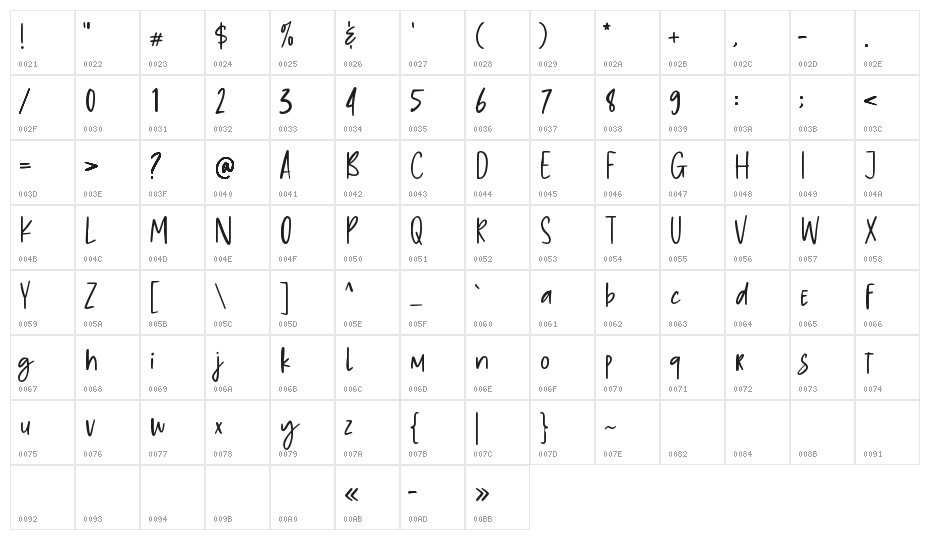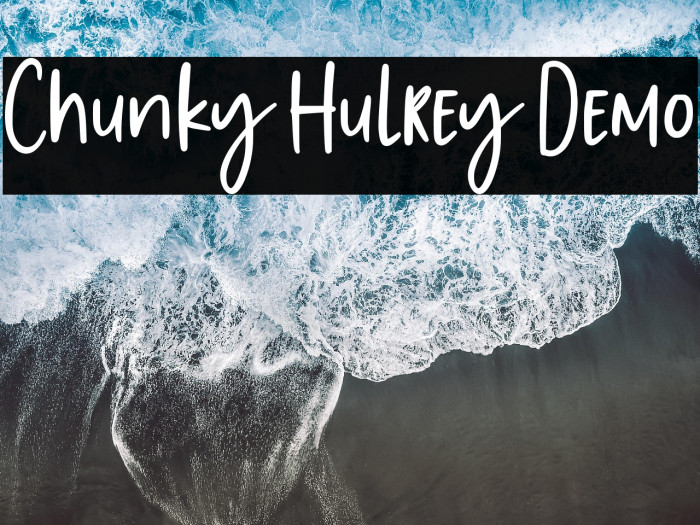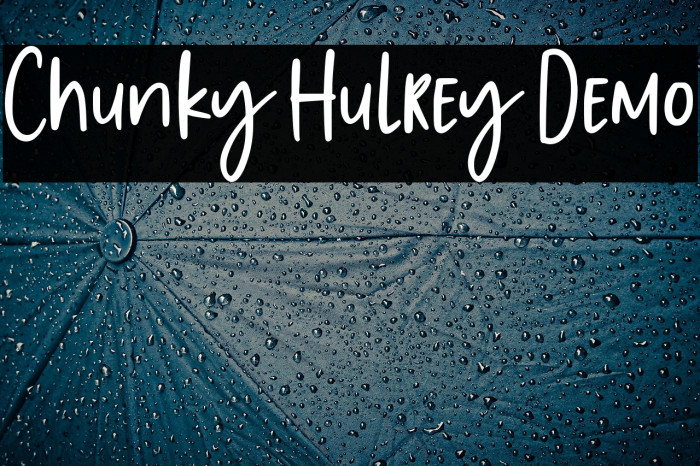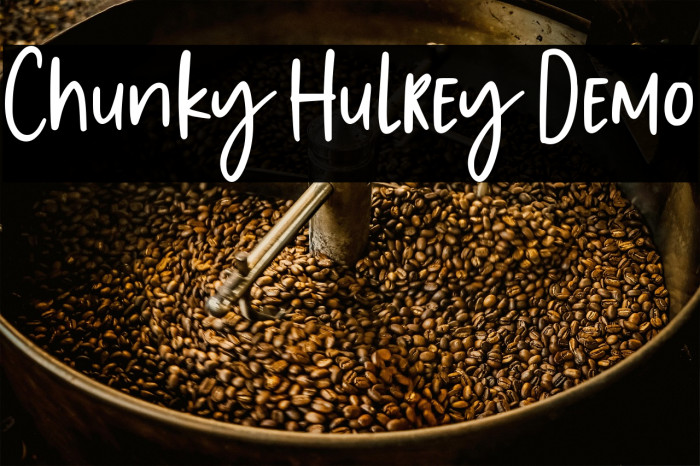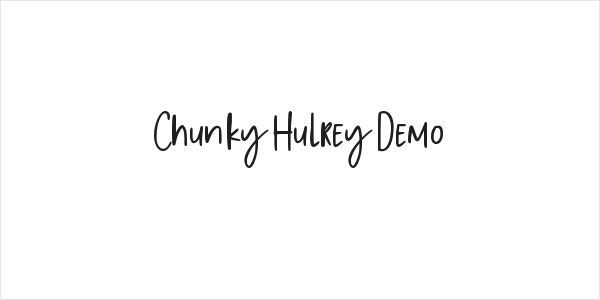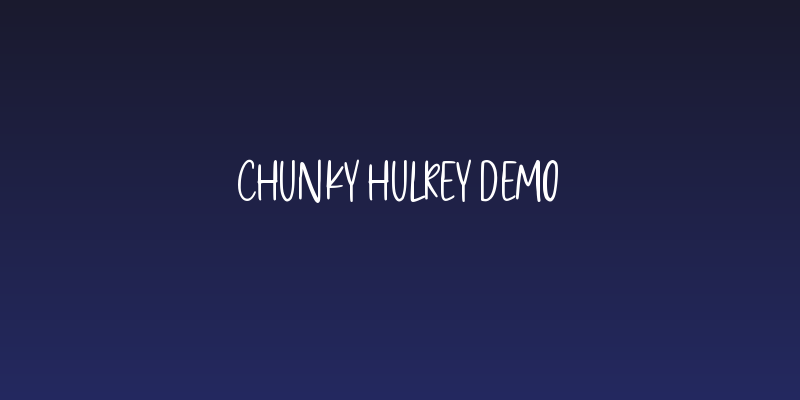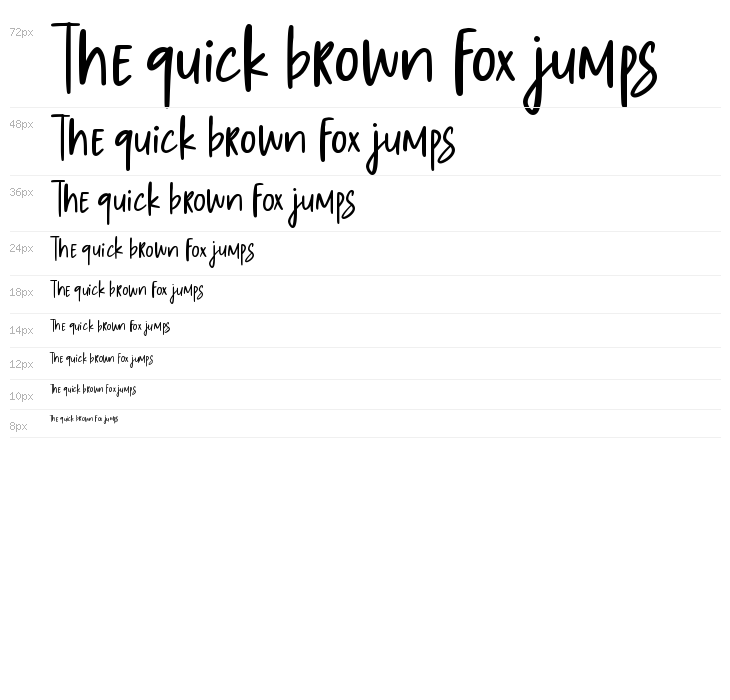
Chunky Hulrey Demo Font
Chunky Hulrey Demo Description
This font features a playful and casual handwritten style, characterized by its smooth, flowing lines and slightly irregular shapes. The uppercase letters are tall and narrow, while the lowercase letters maintain a consistent height, creating a harmonious balance. The numbers and special characters follow the same informal aesthetic, making them easily readable while retaining a unique charm. The overall look is friendly and approachable, perfect for projects that require a personal touch.